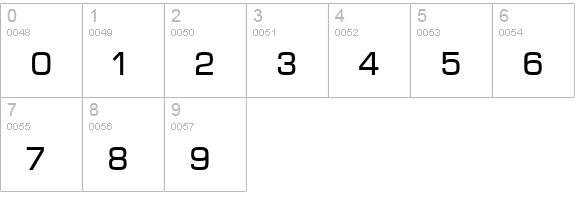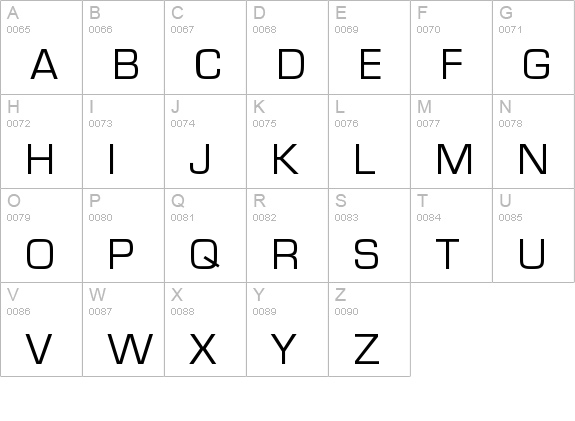
EurostileDCDReg Font Details
EurostileDCDReg is a modern and versatile font that exudes a sense of strength and sophistication. Its clean lines and geometric shapes make it an ideal choice for a wide range of design projects, from logos to headlines to branding materials. The font's bold yet streamlined appearance commands attention and conveys a sense of professionalism. The best part? EurostileDCDReg is available for free download at FontsMarket.com, making it easily accessible to designers and creatives looking to enhance their work with a sleek and contemporary typeface. Whether you're working on a print design, digital project, or anything in between, EurostileDCDReg is sure to make a bold statement and elevate your designs to the next level.